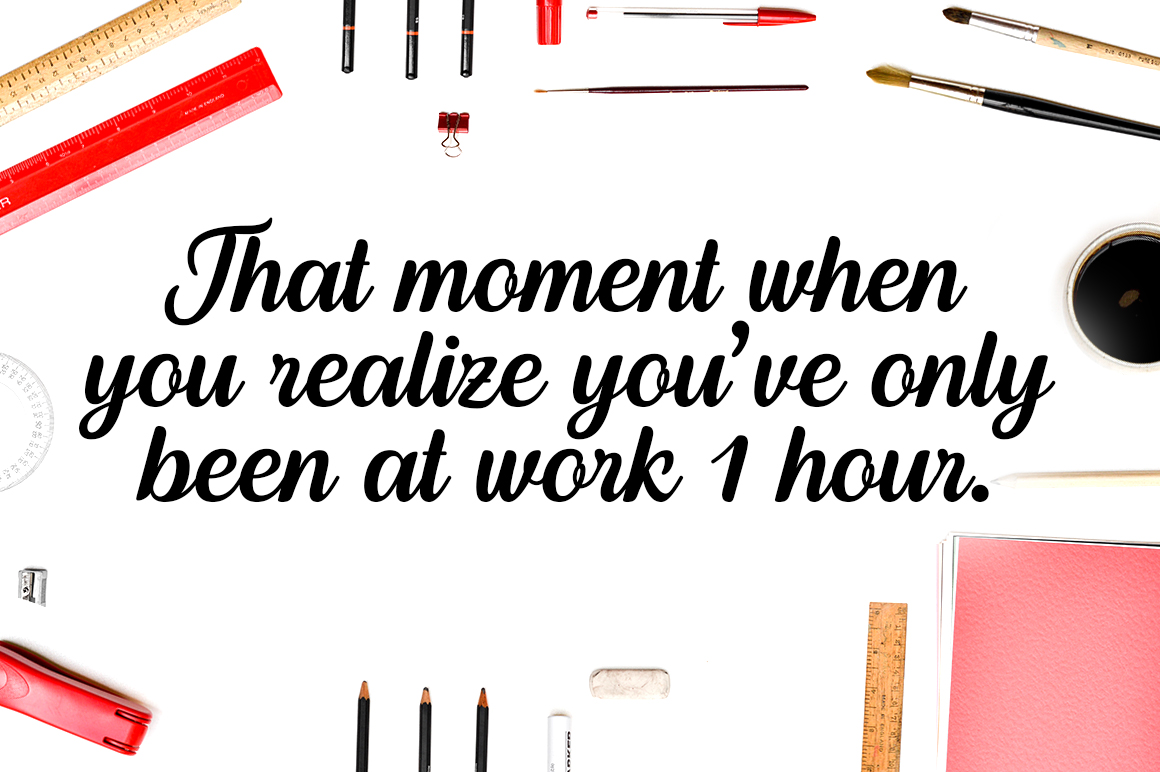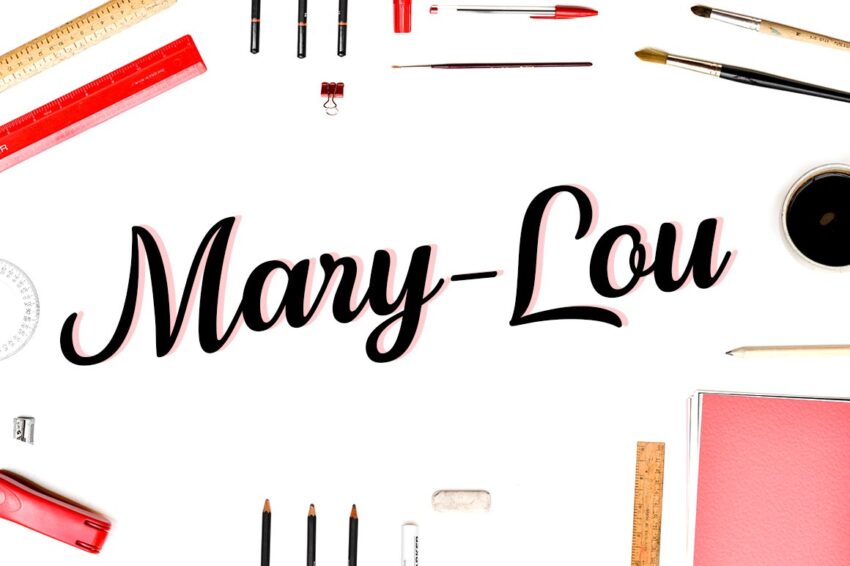
Introduction to Mary-Lou Font
Mary-Lou is a friendly, inviting font.
This script font is ideal for a wide range of display uses, and can add some charm and class to your designs .
Key Features of Mary-Lou Font
Why Choose Mary-Lou Font?
Mary-Lou Font offers exceptional quality and versatility, making it a valuable addition to your design toolkit. Whether you’re creating for personal projects or commercial use, Mary-Lou Font delivers professional results.